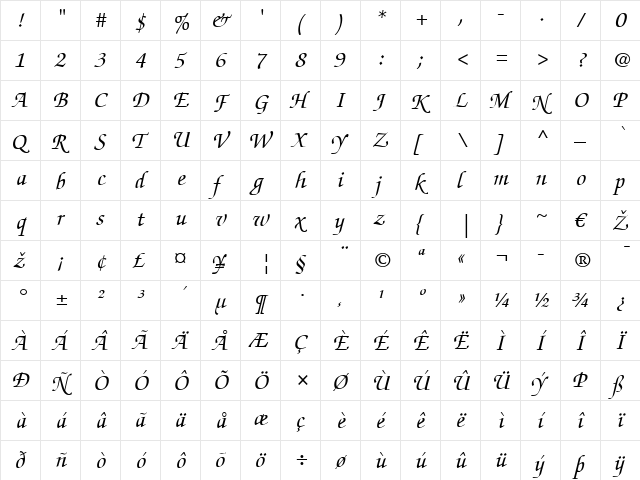
ZapfChancery LT Italic
Design Context for ZapfChancery LT Typeface
ZapfChancery LT is a composed and adaptable typeface that performs quietly and consistently across a wide range of design contexts. The slanted form adds forward momentum and visual energy. Its slender proportions lend an understated elegance to any composition.
Pro Tip: Use ZapfChancery LT for emphasis, pull quotes, and subheadings where its slanted energy can add rhythm to the layout.